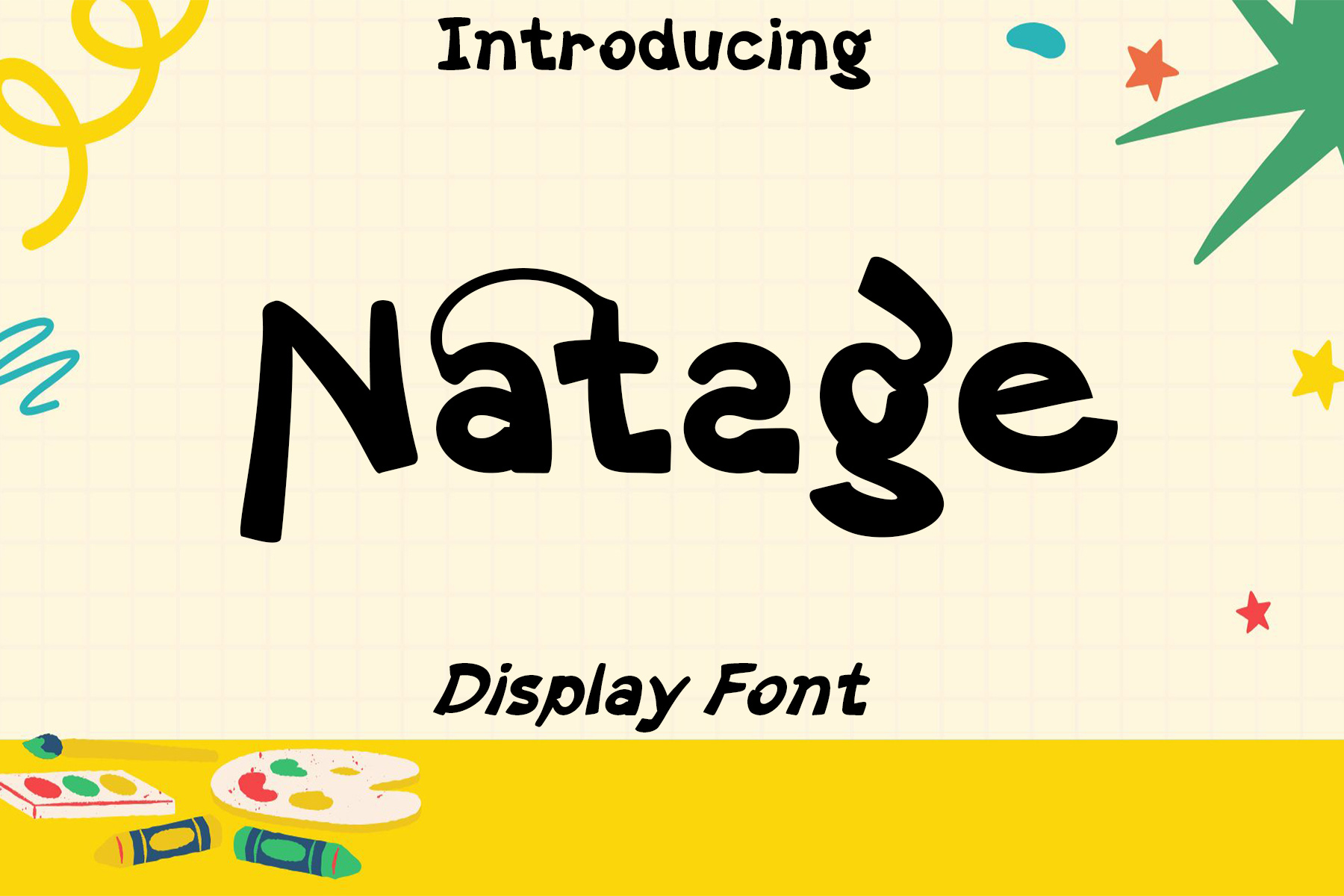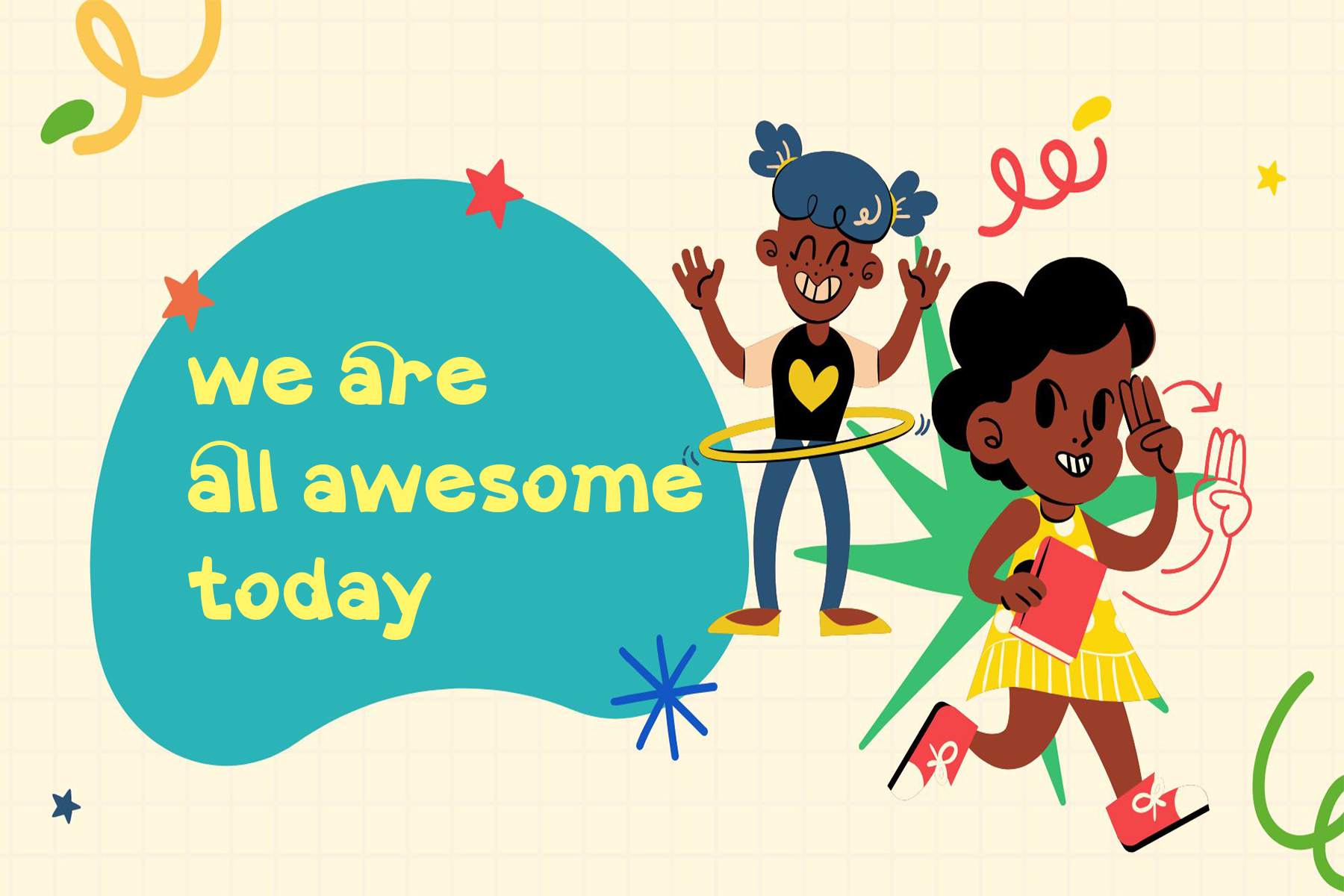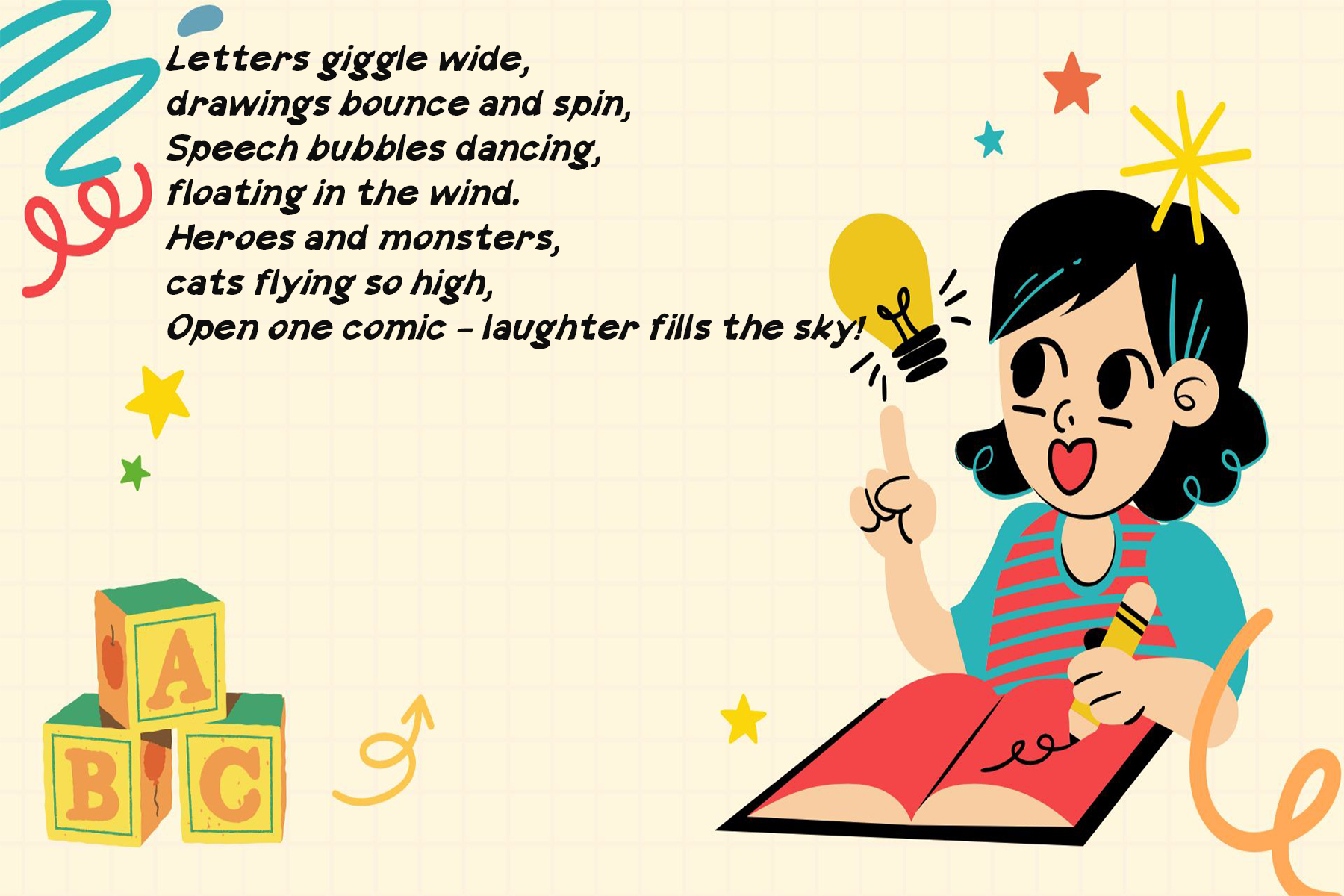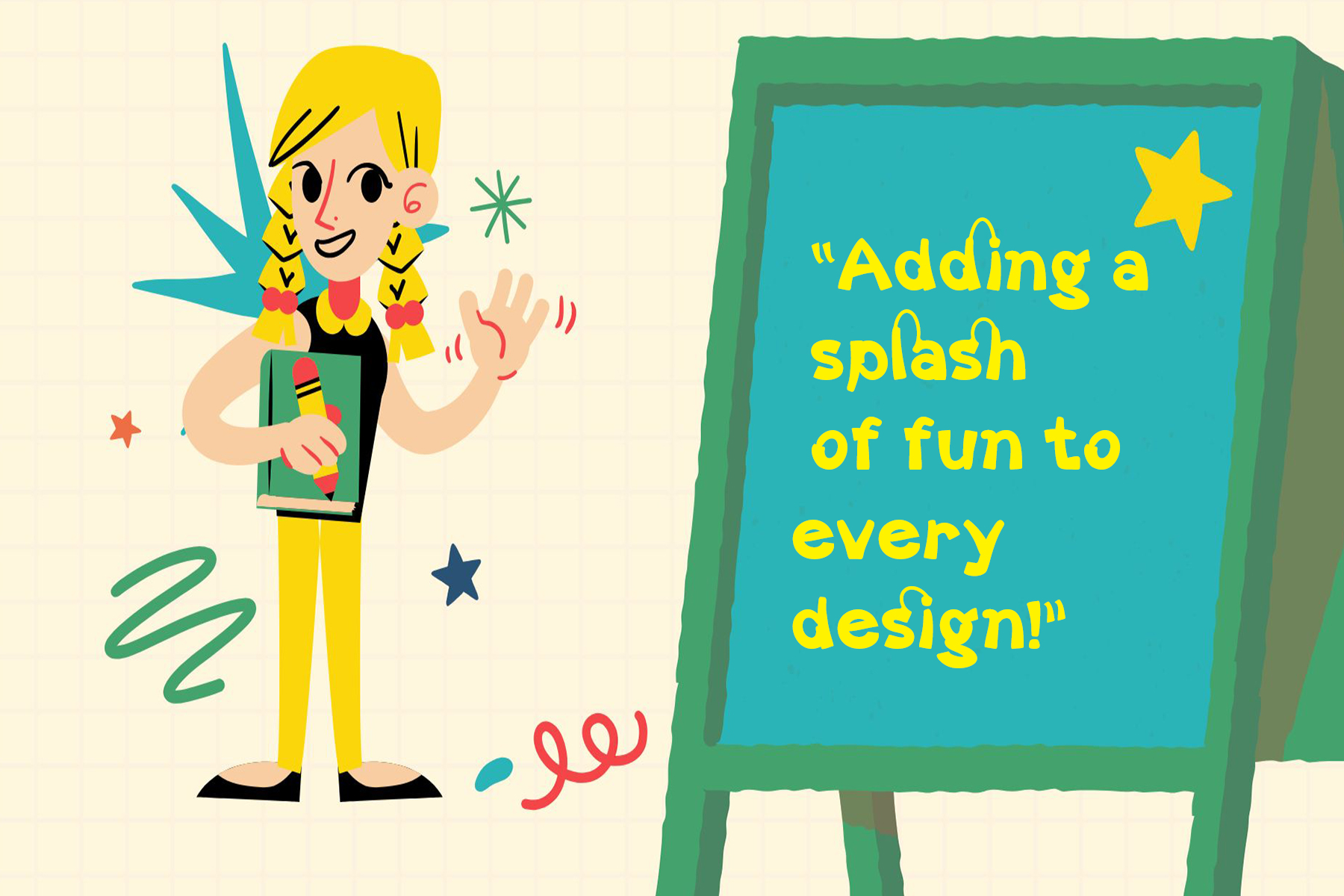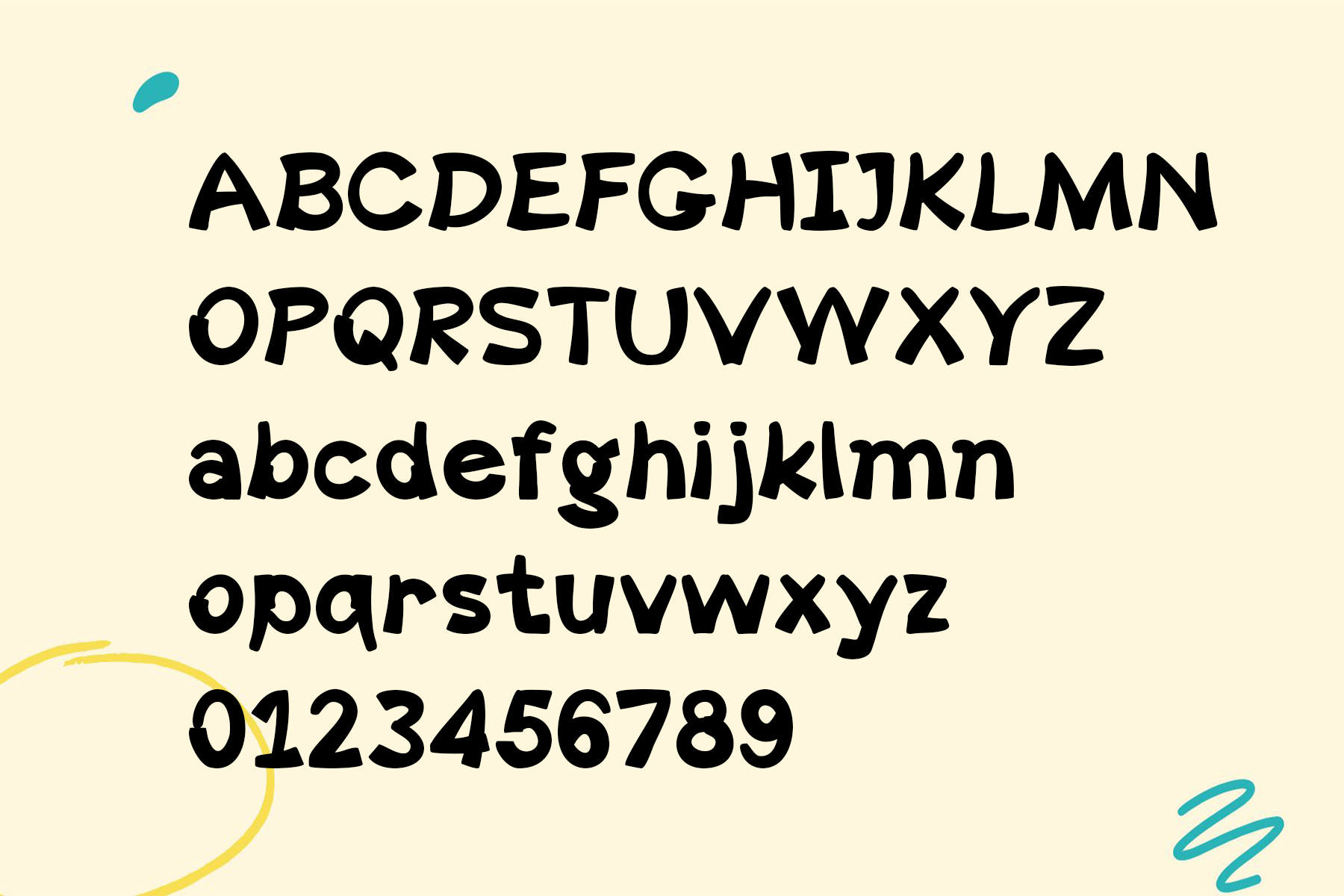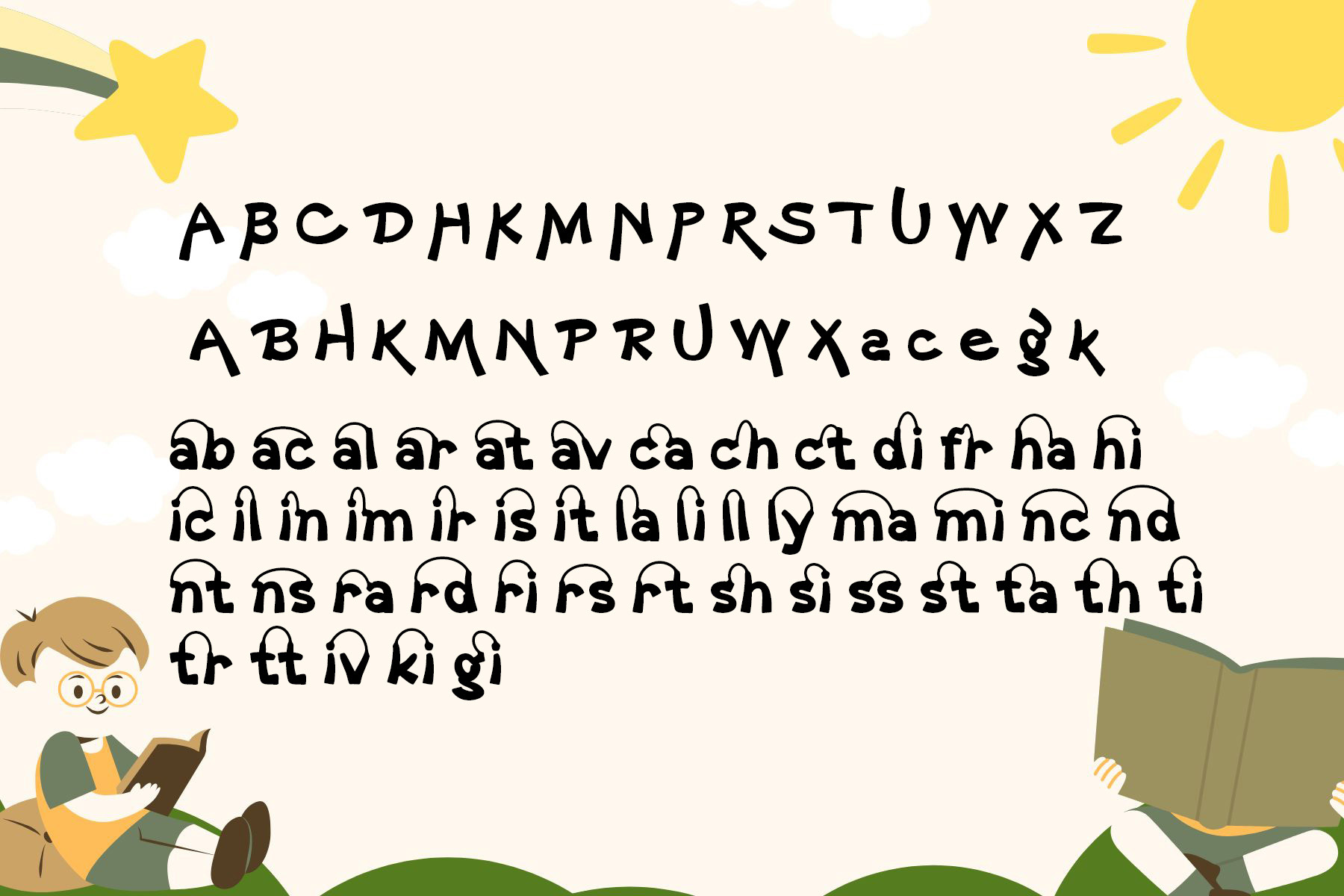
Introducing Natage!
Natage is a bold and playful display font designed to add energy, personality, and a touch of creativity to your projects. With its unique hand-drawn style, charming curves, and dynamic letter shapes, Natage instantly captures attention and brings a cheerful vibe to any design.
Whether you’re working on children’s books, educational materials, posters, product packaging, or eye-catching logos, Natage makes your text stand out while keeping a warm and friendly tone. Its irregular yet balanced shapes give your designs a handcrafted feel, perfect for brands that want to look approachable, fun, and creative.
– Ligature & Huge Stylistic alternates